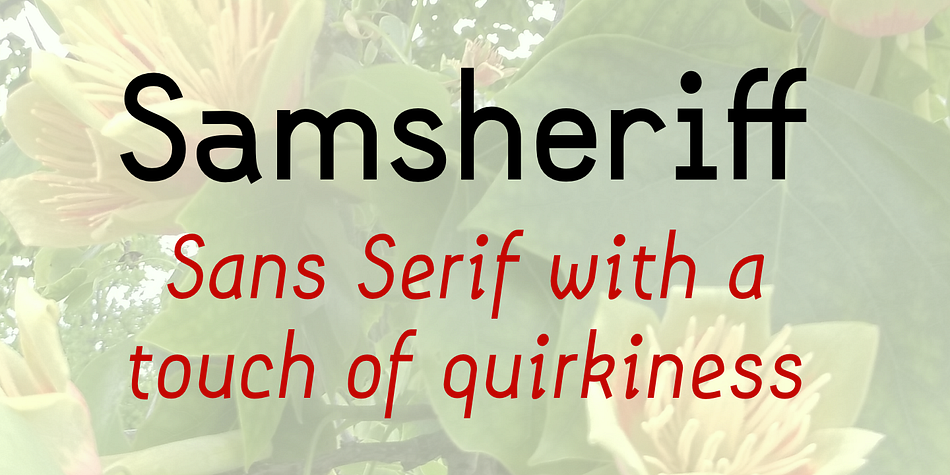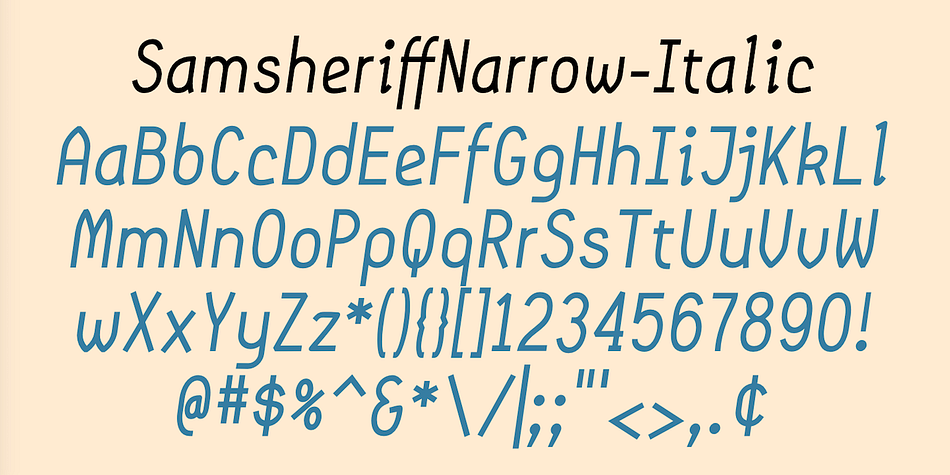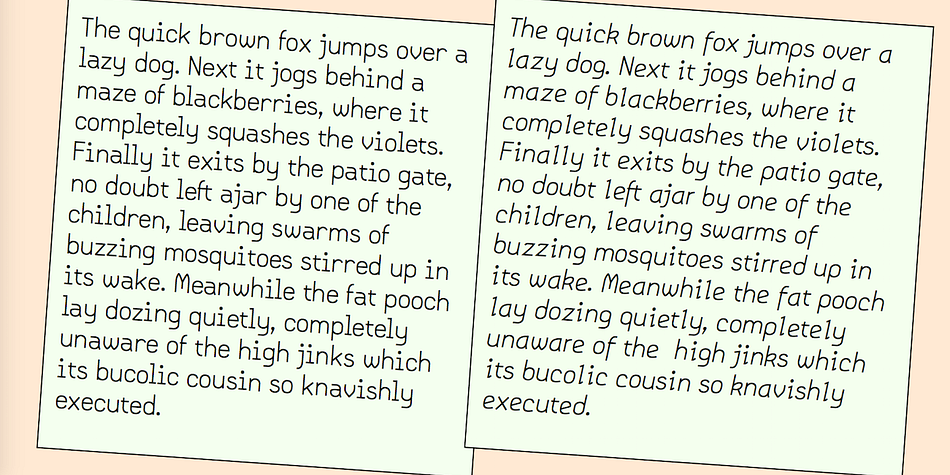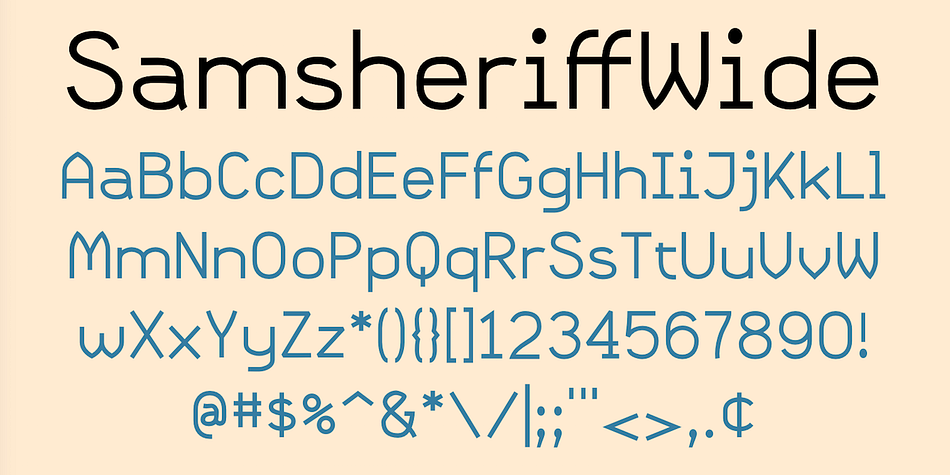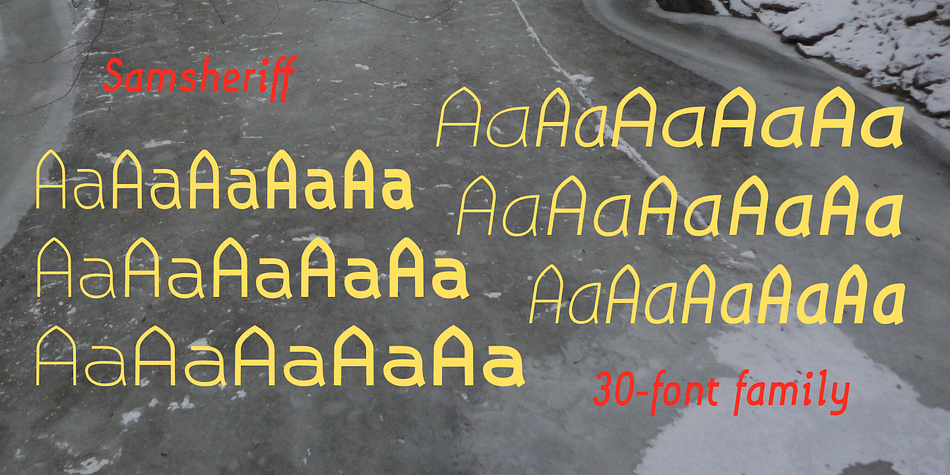
Designed by Robert Schenk, Samsheriff is a display sans font family. This typeface has thirty styles and was published by Ingrimayne Type.
Samsheriff is a large sans-serif family with a touch of quirkiness. It contains an eclectic mix of letter styles but is very legible.
The origin of this typeface was in the caps-only letters used for the novelty font Coffinated. Adding lower-case letters, additional widths, additional weights, and italics resulted in the 30 styles that make up the Samsheriff family.